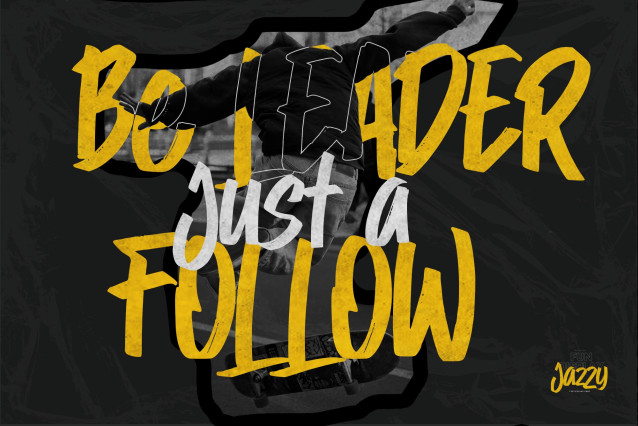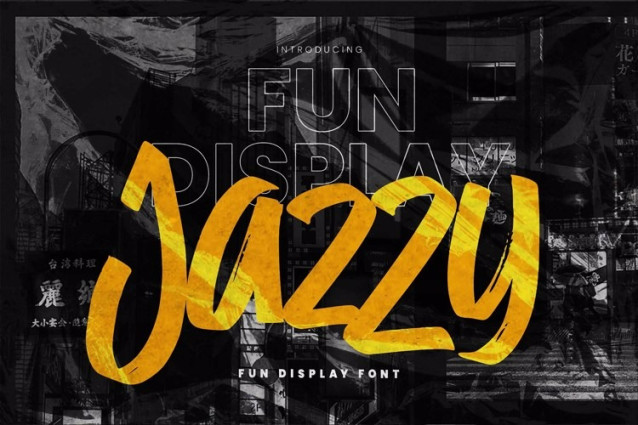
Jazzy Font
Jazzy Font is a Fun Display Font, with bold shapes and quicky details, this font is perfect for making a strong statement in your designs.